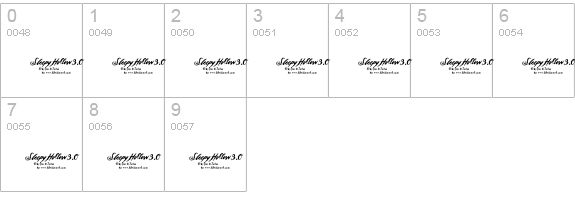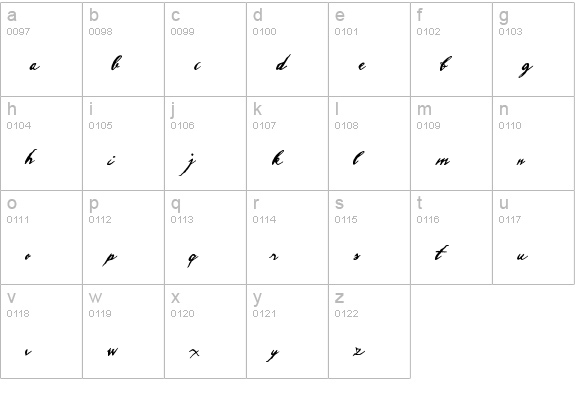
Introducing Sleepy Hollow 3.0 font, a mesmerizing typeface that will transport you to the eerie and mysterious world of the legendary Sleepy Hollow. With its delicate yet hauntingly beautiful curves and intricate details, this font captures the essence of the dark and captivating tale. Sleepy Hollow 3.0 font is carefully crafted to evoke a sense of mystery and suspense, making it perfect for Halloween-themed projects, horror movie posters, book covers, and any design that needs a touch of the supernatural. Its unique and timeless appeal will captivate your audience, drawing them into a world of enchantment and suspense. What sets Sleepy Hollow 3.0 font apart is not just its stunning design, but also the fact that it is freely available to download at FontsMarket.com. Yes, you heard it right! This incredible font can be yours without spending a dime. Now you can add a touch of magic to your designs without breaking the bank. Whether you are a professional designer or an aspiring artist, Sleepy Hollow 3.0 font will be your secret weapon, helping you create striking visuals that leave a lasting impression. Its versatility allows it to shine in both digital and print mediums, ensuring that your designs stand out from the crowd. So, don't miss out on this extraordinary opportunity to enhance your creative projects with Sleepy Hollow 3.0 font. Visit FontsMarket.com today and experience the thrill of the supernatural with this free, captivating typeface. Let your imagination run wild and unlock the secrets of Sleepy Hollow with this stunning font that is just a download away.